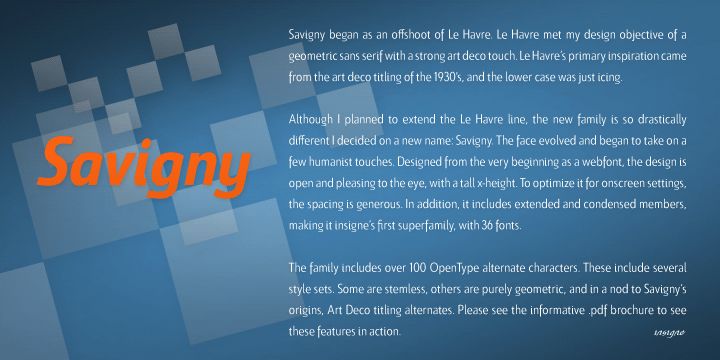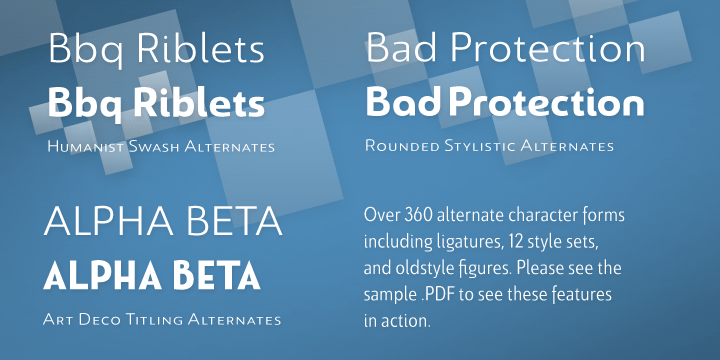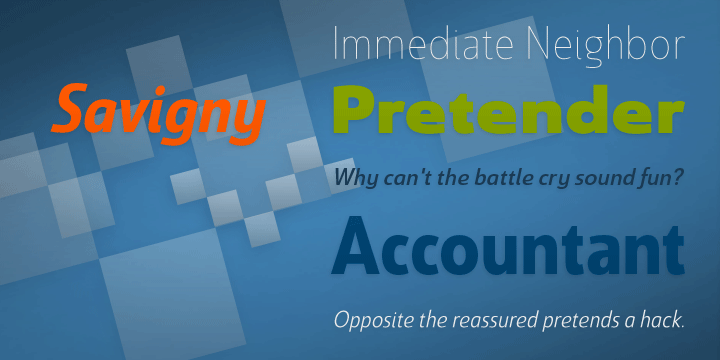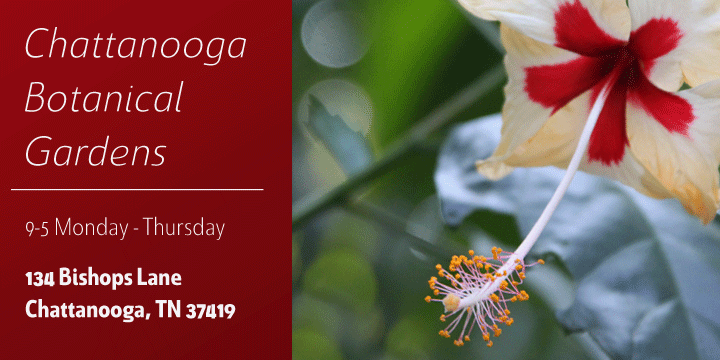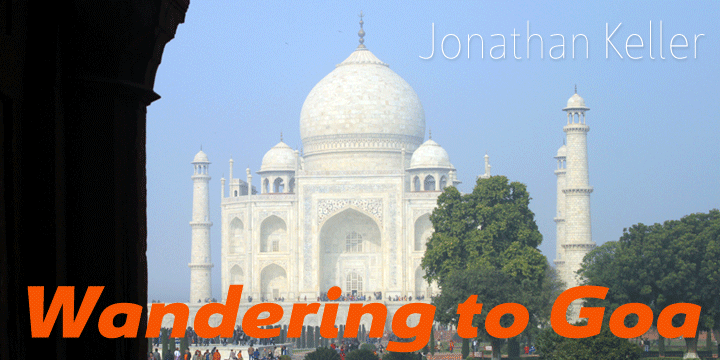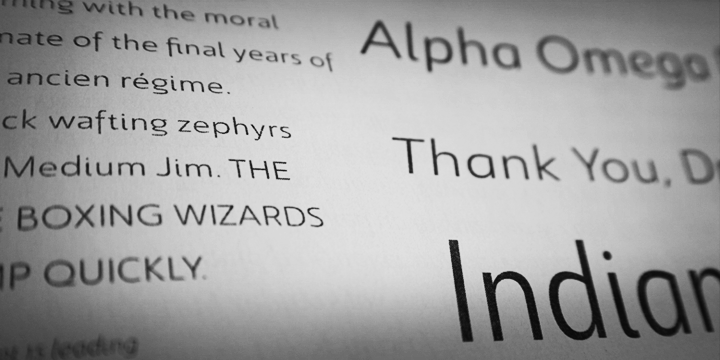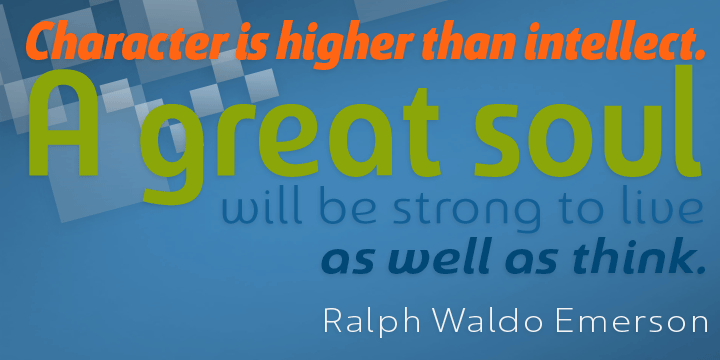
Savigny
Buy NowSavigny began as an offshoot of Le Havre. Le Havre met my design objective of a geometric sans serif with a strong art deco touch. Le Havre's primary inspiration came from the art deco titling of the 1930's, and the lower case was just icing. The art of the 1930's is of particular interest to me, and I love the art deco era and its art, and the simplicity of geometric shapes. I am mostly interested in designing display typefaces. In many ways Le Havre was the exact opposite of another popular insigne offering, Aviano Sans. Le Havre has very high ascenders, a lower case and is very condensed. Aviano Sans has no lowercase and extremely extended capitals.
With the rise of webfonts I began to see Le Havre being used frequently online. It's short x-height and very tall ascenders made it difficult to read in on screen text settings as it was intended as display type. With this observation, I felt that there is more room for a geometric sans in the insigne catalog. So I set about to design a new geometric sans using the successful skeleton of the Le Havre family.
Although I planned to extend the Le Havre line, the new family is so drastically different I decided on a new name: Savigny. The face evolved and began to take on a few humanist touches. Designed from the very beginning as a webfont, the design is open and pleasing to the eye, with a tall x-height. To optimize it for onscreen settings, the spacing is generous. In addition, it includes extended and condensed members, making it insigne's first superfamily.
The family includes over 100 OpenType alternate characters. These include several style sets. Some are stemless, others are purely geometric, and in a nod to Savigny